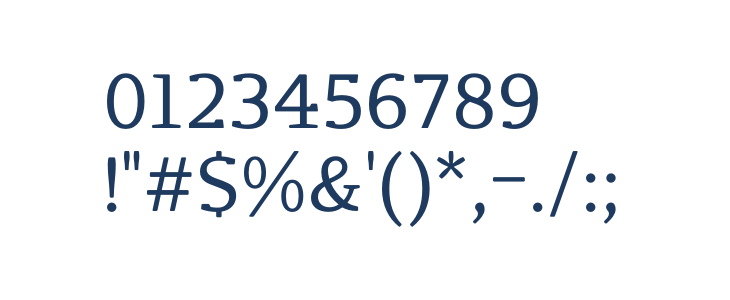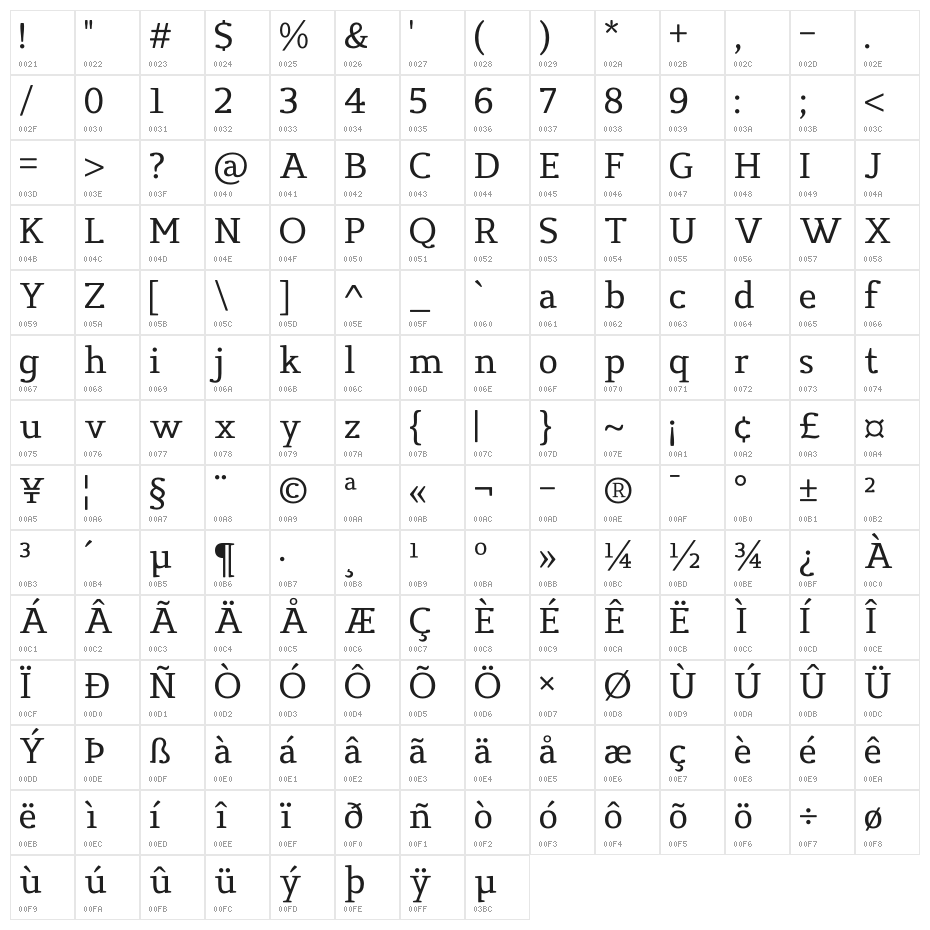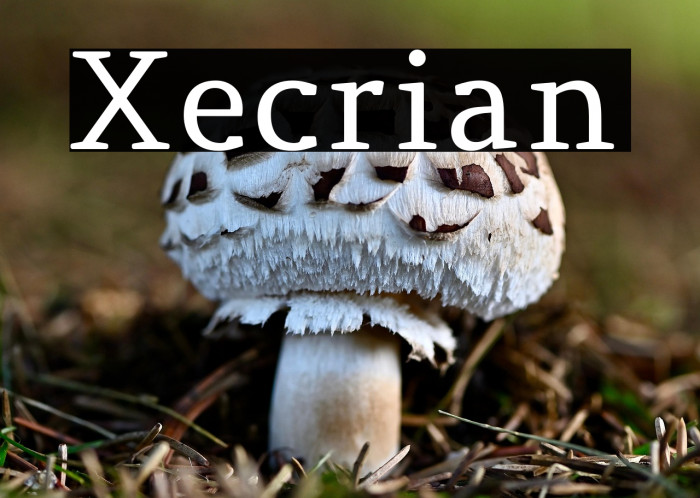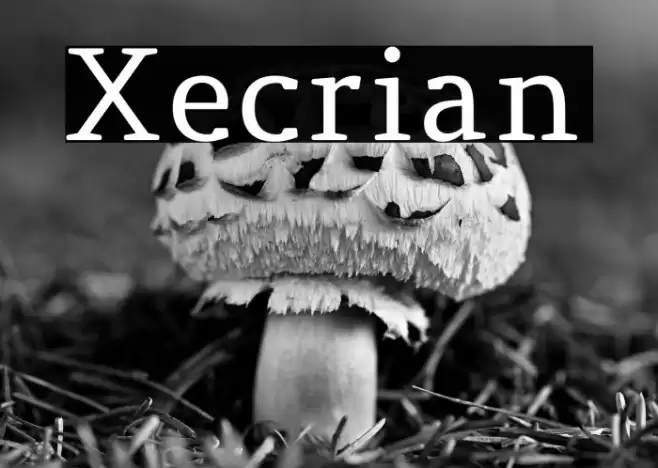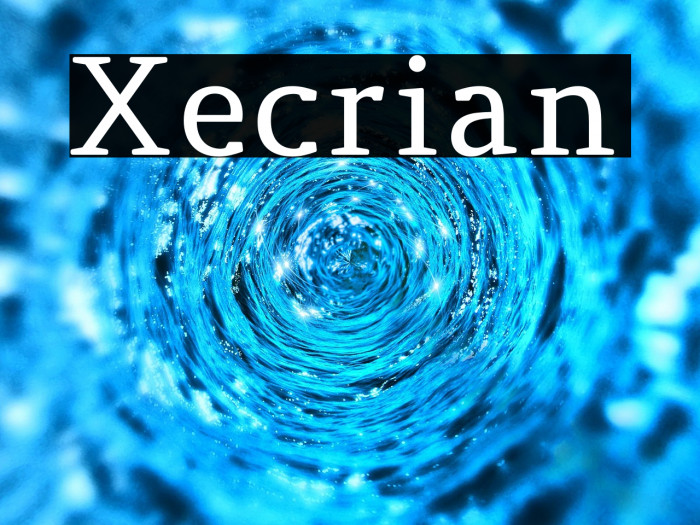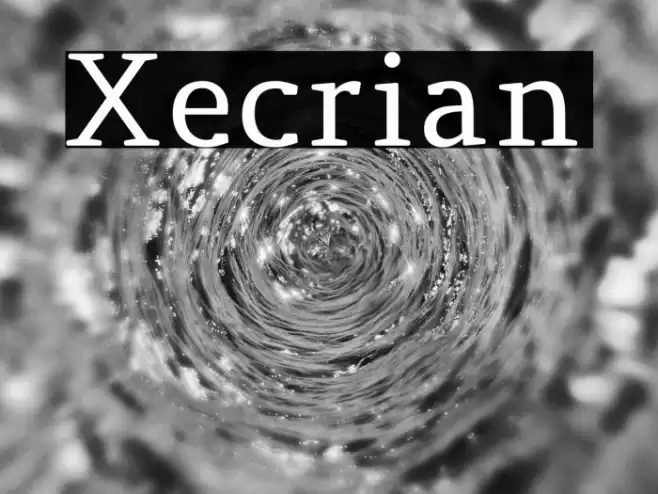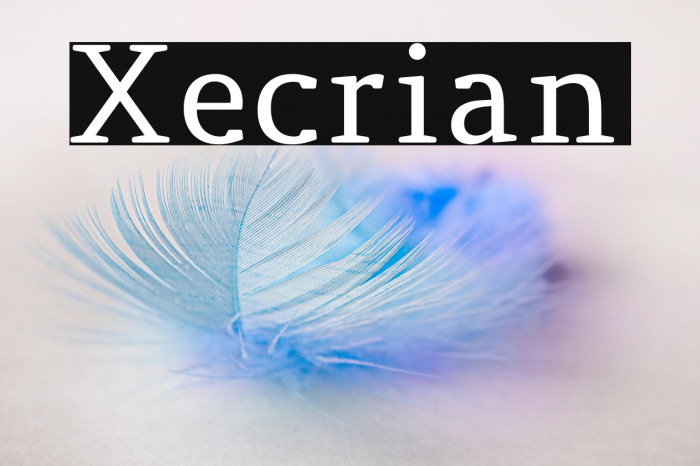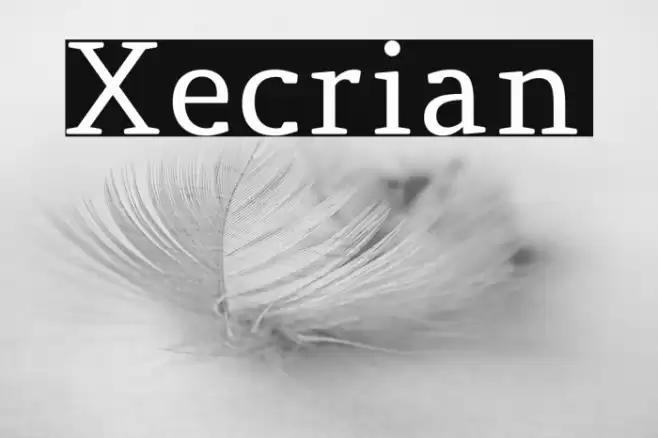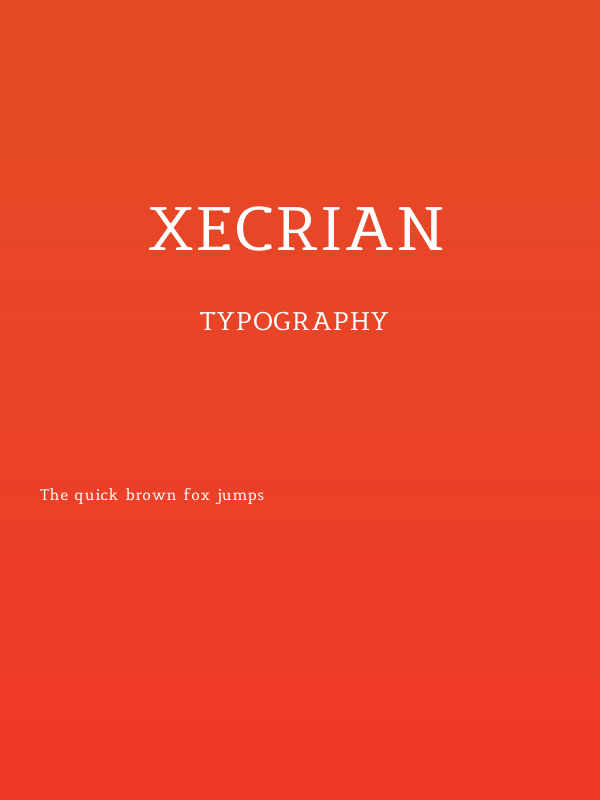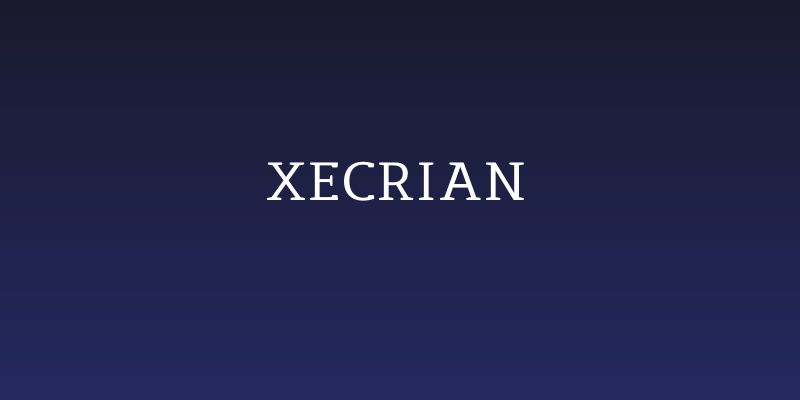
Xecrian Font
Xecrian Description
This font features a classic serif style with a modern twist. The characters are well-defined with slight variations in stroke width, providing a medium contrast that enhances readability. The serifs are pronounced yet not overly ornate, giving the font a timeless and versatile appearance. The uppercase letters are bold and commanding, while the lowercase letters maintain a balanced and approachable look. Numerals are clear and distinct, making them suitable for both text and display purposes. The special characters are elegantly integrated, maintaining the overall aesthetic of the typeface.
| Proposed Projects | Ideal for editorial design, book covers, formal invitations, and branding projects that require a touch of elegance and tradition. |